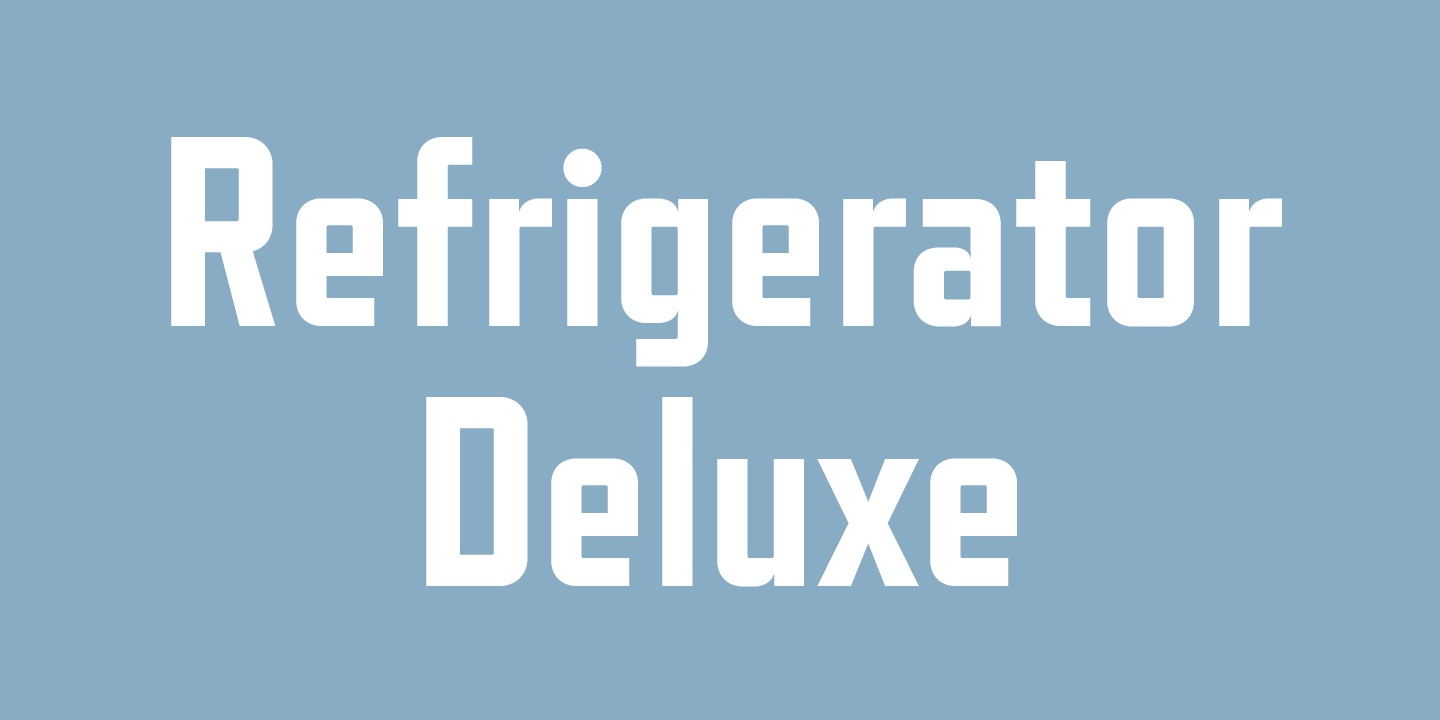
Refrigerator Deluxe Font
Refrigerator Deluxe Font is ideal for retro diner signage, vintage appliance advertising, 1950s themed restaurants, nostalgic product packaging, mid-century modern branding, classic American diners, retro kitchen designs, vintage promotional materials, throwback marketing campaigns, and authentic period reproductions.
What makes Refrigerator Deluxe Font so exciting is its perfect capture of mid-century American optimism and the golden age of domestic innovation. This distinctive typeface features bold, chunky letterforms with characteristic rounded edges and playful proportions that immediately evoke the cheerful confidence of 1950s consumer culture. The font's robust construction and friendly aesthetic create an instant sense of nostalgia and wholesome Americana, making it perfect for projects that need to convey comfort, reliability, and the timeless appeal of classic American design sensibilities.
The Refrigerator Deluxe Font family typically includes multiple weights and decorative styles, often featuring regular, bold, and outline variations. Vintage-inspired font collections frequently offer additional period-appropriate elements such as shadow effects, condensed versions, and ornamental characters that enhance the authentic retro atmosphere and provide designers with comprehensive nostalgic design flexibility.
The versatility of Refrigerator Deluxe Font makes it particularly effective for hospitality and food service industries where creating warm, welcoming atmospheres is essential for customer connection. Restaurant owners and hospitality marketers will find this font especially valuable for establishing brand personalities that emphasize comfort, tradition, and family-friendly values.
What sets Refrigerator Deluxe Font apart is its ability to evoke specific cultural memories while remaining thoroughly contemporary in its application possibilities. This unique characteristic makes it suitable for both authentic historical recreations and modern interpretations of vintage aesthetics.
Professional designers appreciate that Refrigerator Deluxe Font brings instant recognition and emotional connection to projects across industries including hospitality, retail, entertainment, and consumer goods. Its nostalgic character and Americana appeal make it indispensable for brands seeking to tap into powerful cultural associations with simpler times and enduring values.